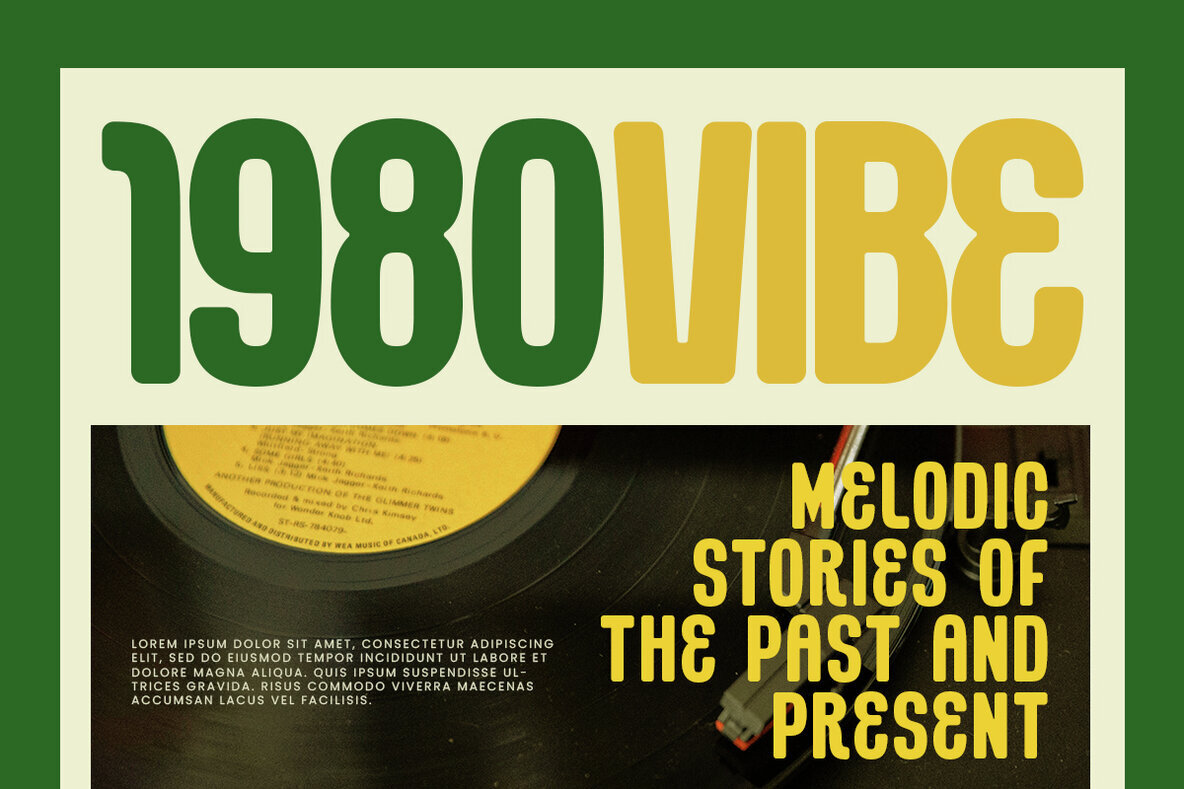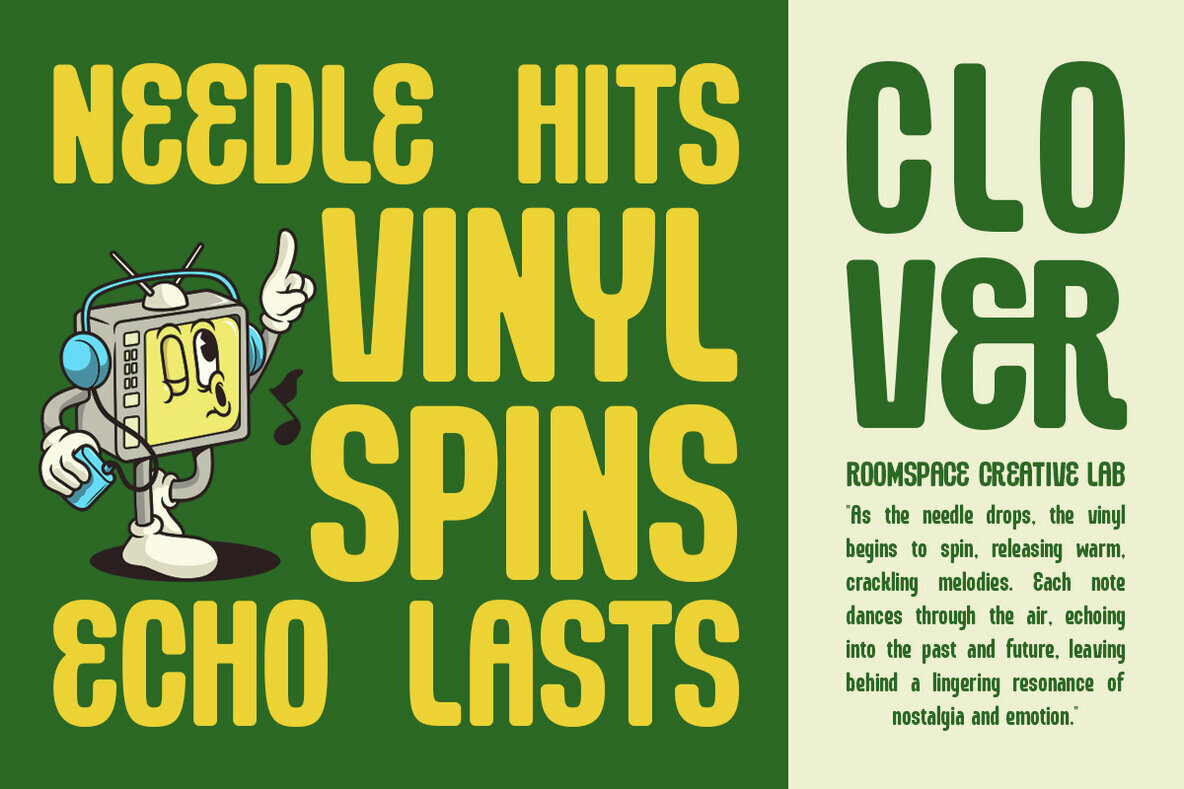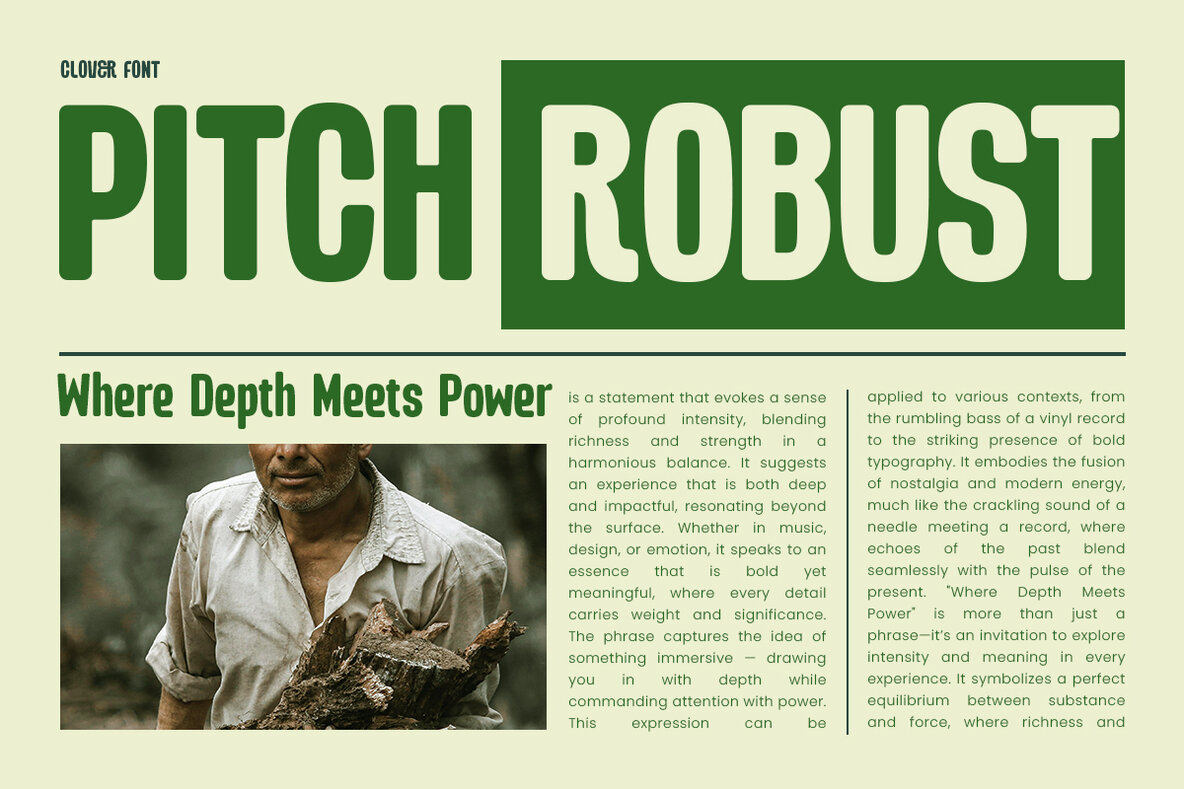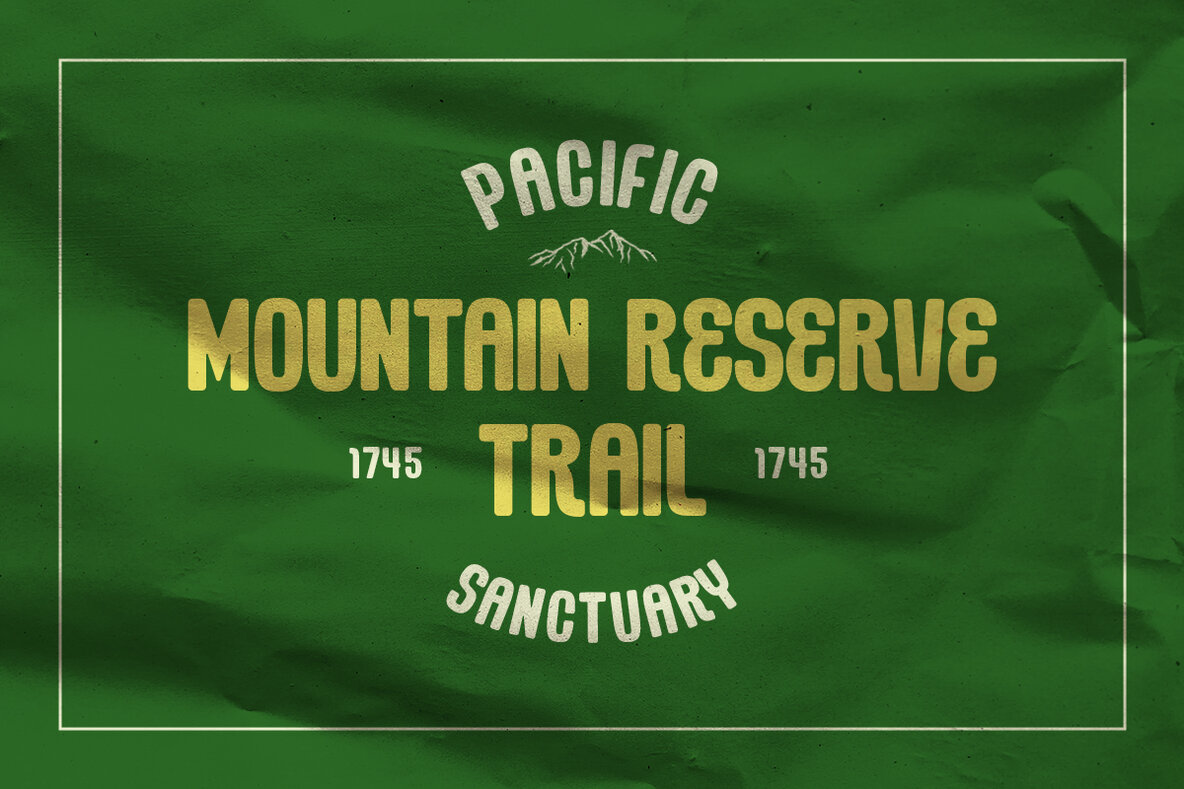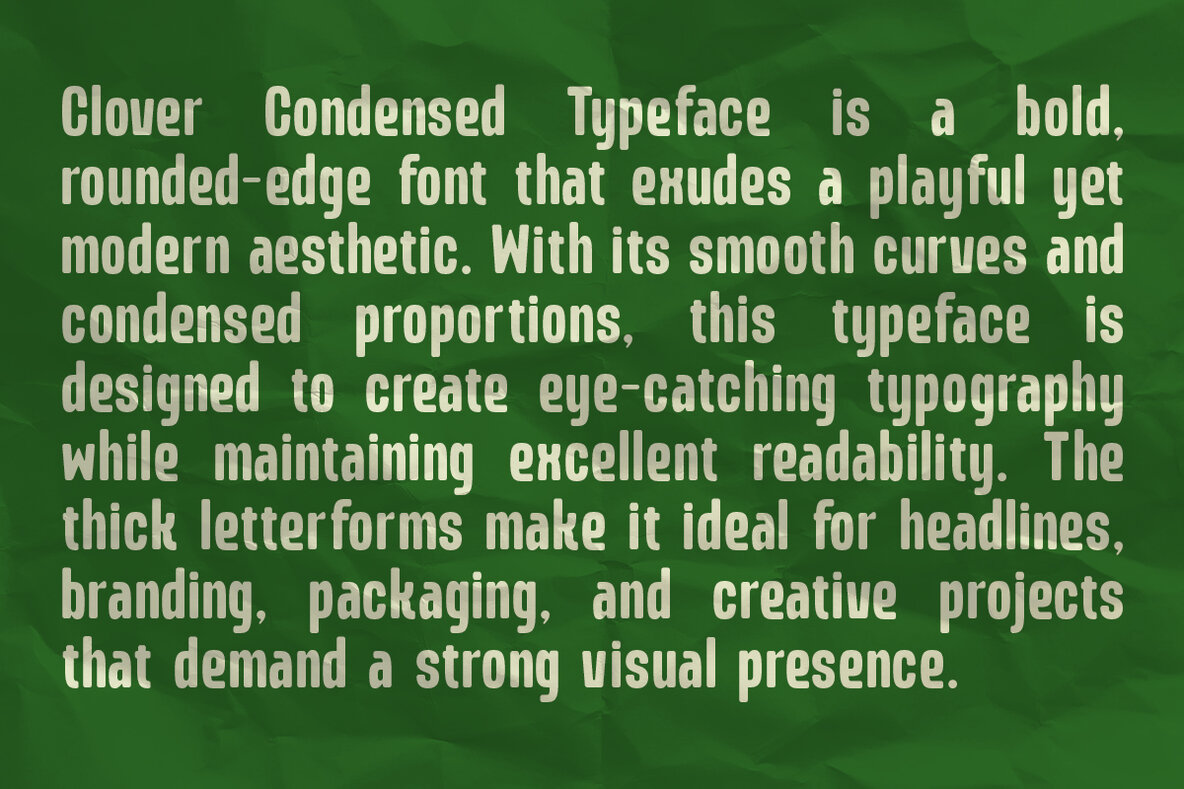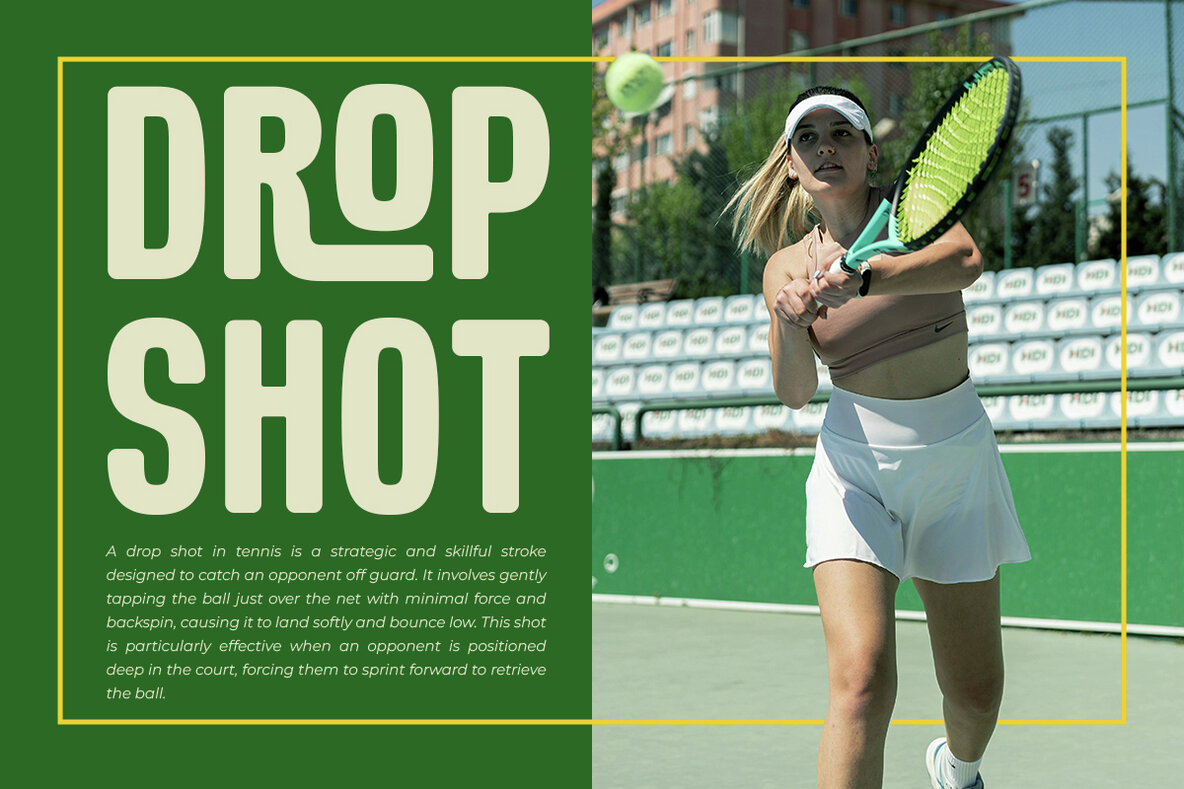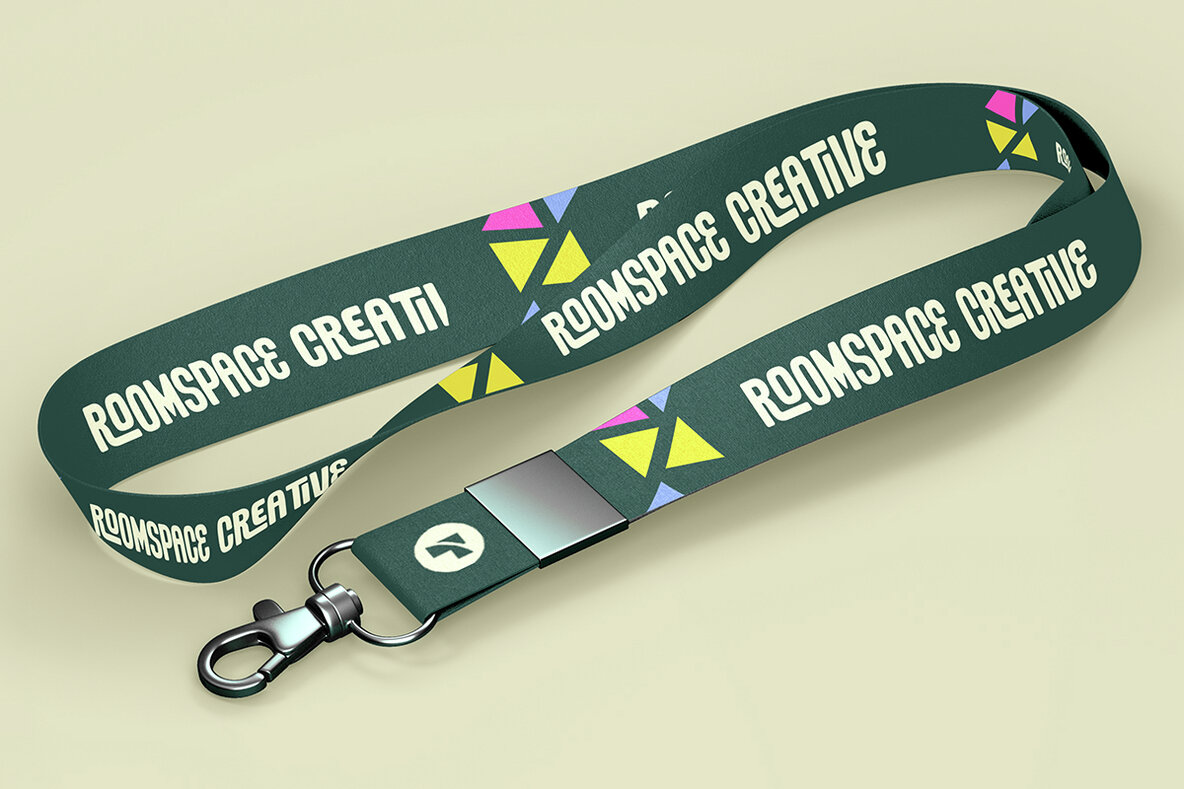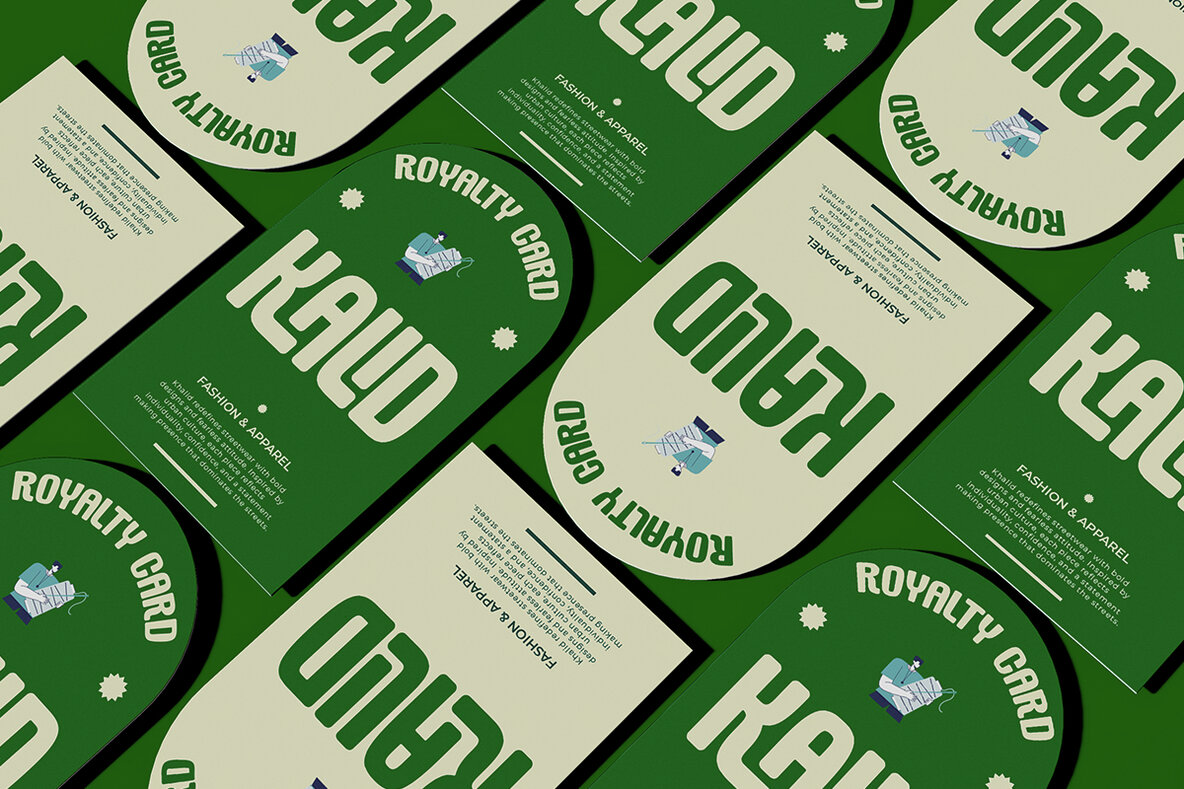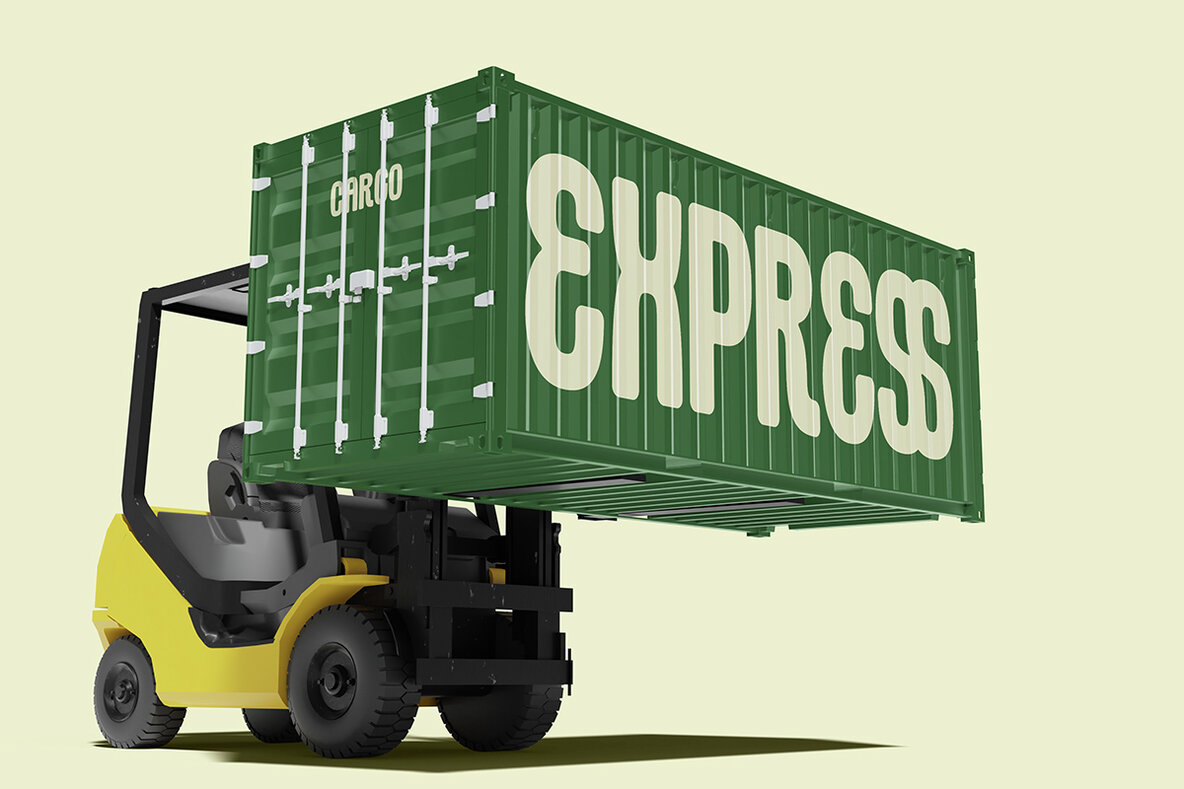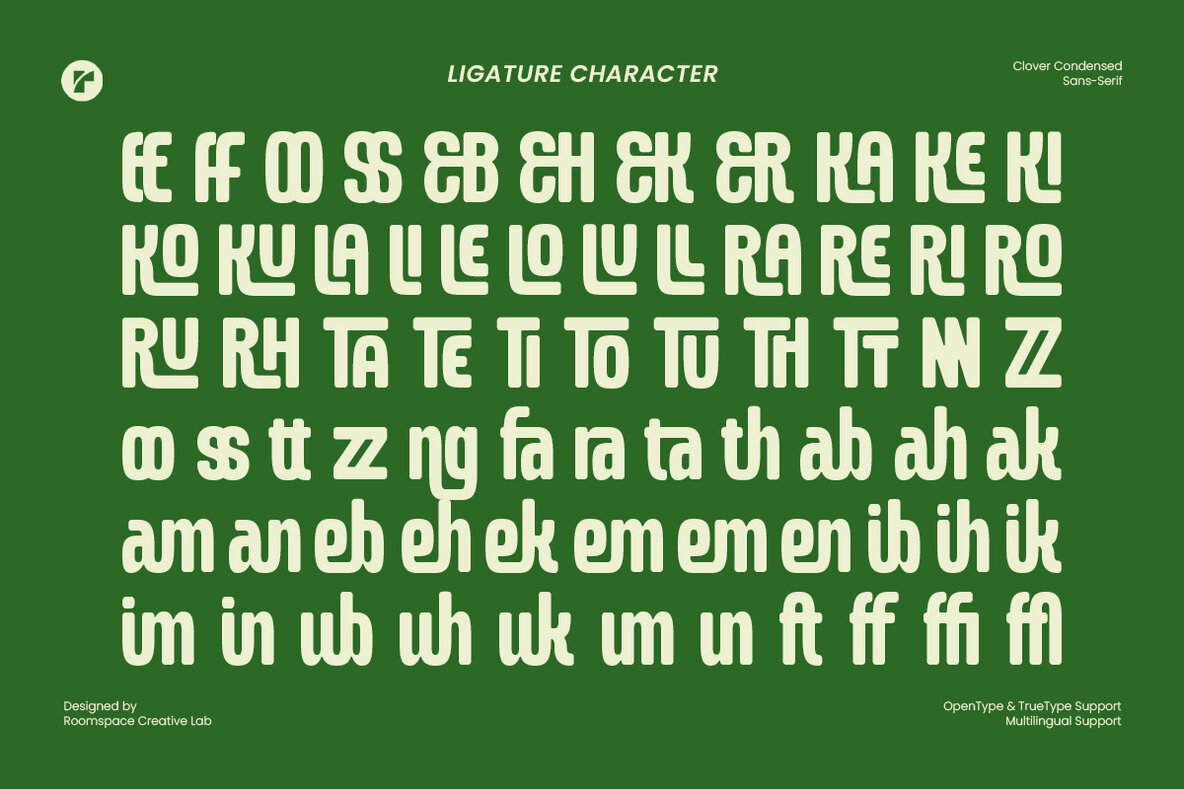
Clover Font
Clover Condensed Regular
Clover Condensed is a bold and modern sans serif font with a strong, blocky, and versatile style. Designed for branding, logos, posters, gaming, esports, and editorial design, this extra-condensed display font offers a powerful presence while ensuring great readability. Its clean yet dynamic structure makes it perfect for film posters, web design, advertising, and high-impact headlines. Whether you're creating premium branding, a sleek gaming layout, or a bold magazine cover, Clover Condensed brings a modern edge to your typography. Support: